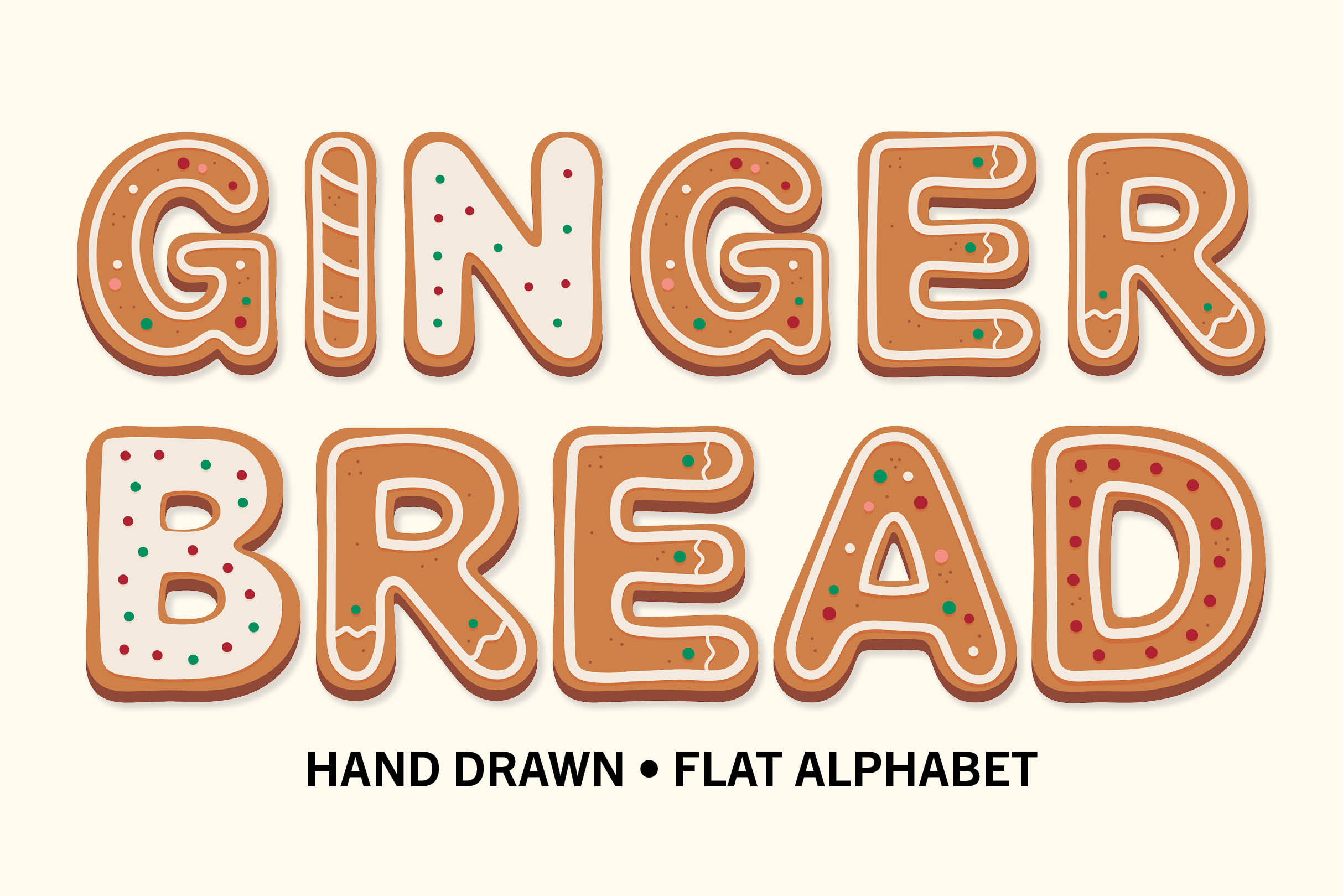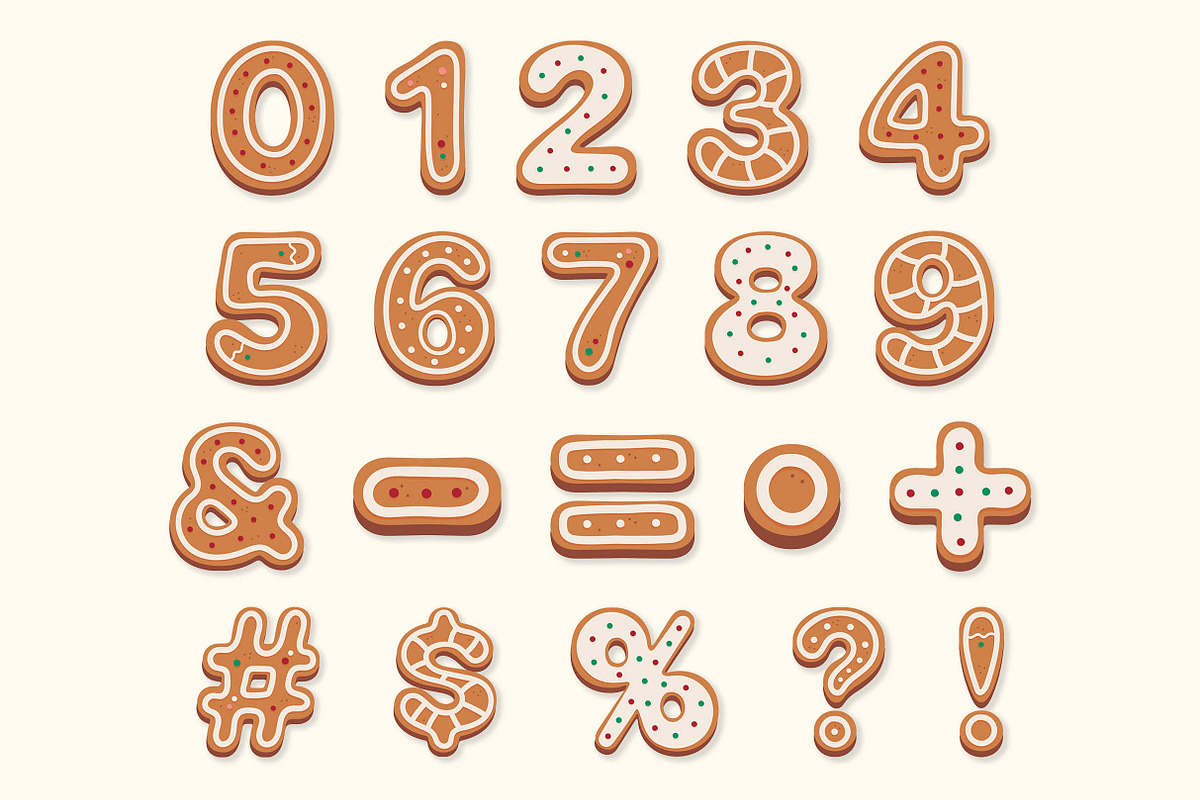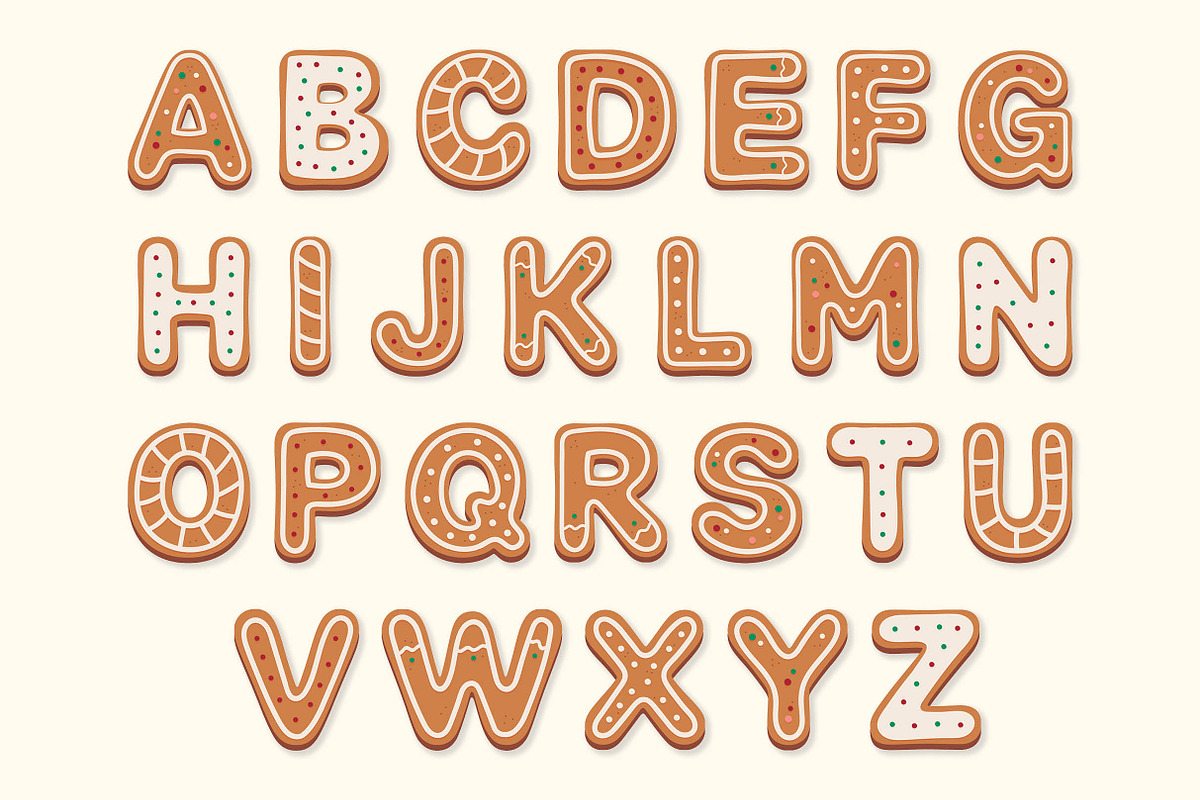
Gingerbread Alphabet Font
Hand Drawn Gingerbread Alphabet
This holiday bundle includes 26 letters, 10 numbers, and 10 symbols. Each letter is designed to look like a gingerbread cookie and uses a color palette of brown, cream, red, and green.
All motifs are hand drawn by me, and assembled by hand using Adobe Illustrator. You can use this alphabet for flyers, invitations, cards, digital graphics, and so much more!